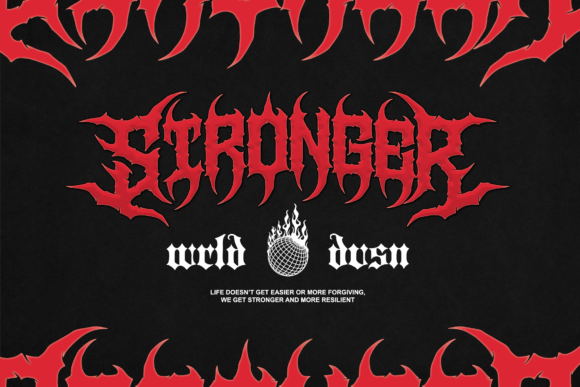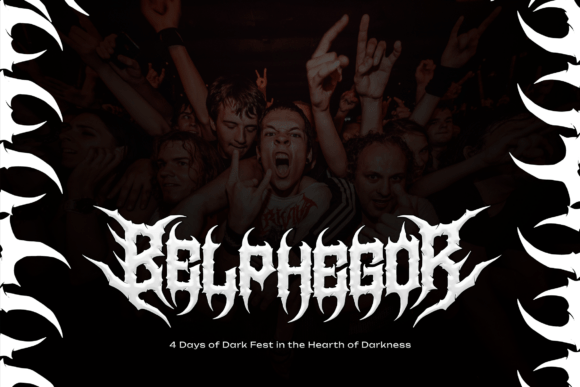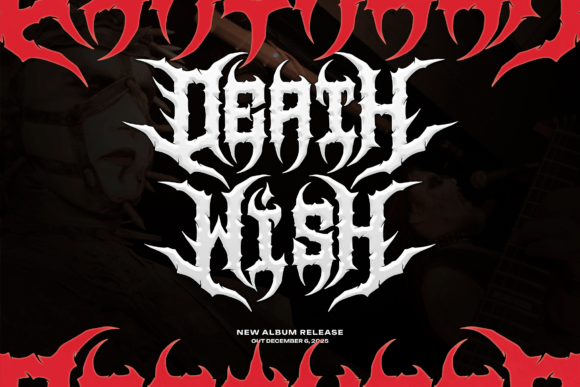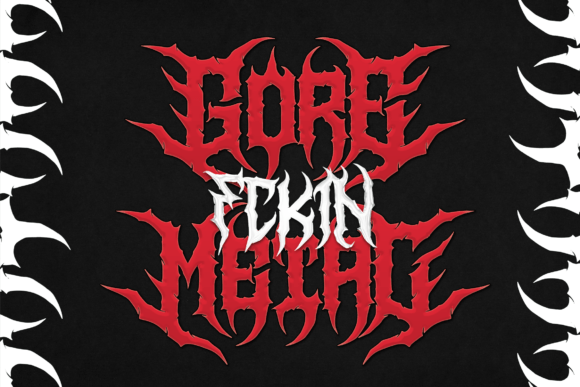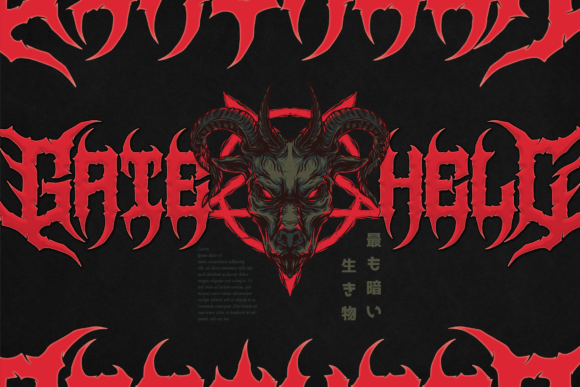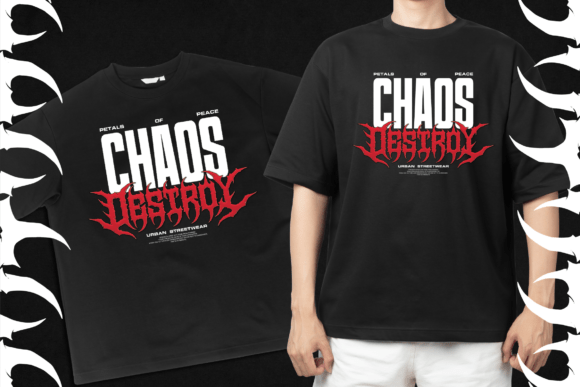
Introduction to Nethers Echo Font
Have you ever found yourself staring at a blank canvas, desperate for the perfect font to bring your creative project to life? For designers who crave the raw, unbridled energy of extreme music culture, the search can be a daunting one. That’s why we’re excited to introduce you to Nethers Echo Font, a hauntingly intense black metal font that’s sure to strike fear into the hearts of your design’s opponents.
This high-quality font is more than just a design resource – it’s a reflection of the uncompromising authenticity that defines the black and death metal aesthetics. With its jagged, web-like glyphs that bleed into each other, Nethers Echo Font is the perfect addition to any design that demands dark energy and brutal impact.
Key Features of Nethers Echo Font
- Nethers Echo Font is a high-quality design resource ideal for creative projects that require a unique, eerie atmosphere.
- Nethers Echo Font is a highly versatile design element, suitable for a variety of creative projects, from horror-themed posters to mystical illustrations.
- This font features a unique, distressed aesthetic, with intricate details and subtle texture, adding depth and character to your designs.
- With its otherworldly feel and high-quality design, Nethers Echo Font is a valuable addition to any designer’s toolkit, perfect for adding an air of mystery to your creative projects.
Honest Review: Nethers Echo Font
I recently had the opportunity to work with the Nethers Echo Font, and I must say it’s a solid addition to any designer’s toolkit. As a design resource, it offers a unique aesthetic that’s perfect for creative projects.
One of the standout features of the Nethers Echo Font is its high quality. The font is crisp and clear, making it ideal for use on transparent backgrounds. I’ve found it to be particularly useful when working on designs where texture and depth are key.
Here are some of the things that work well: ✨
- Unique and creative aesthetic
- High quality font with clear lines and letterforms
- Perfect for use on transparent backgrounds
- No support for variable font technology
The Nethers Echo Font is a high-quality design resource that can elevate your creative project. With its unique and captivating style, this font is perfect for designers who want to add a touch of sophistication to their work.